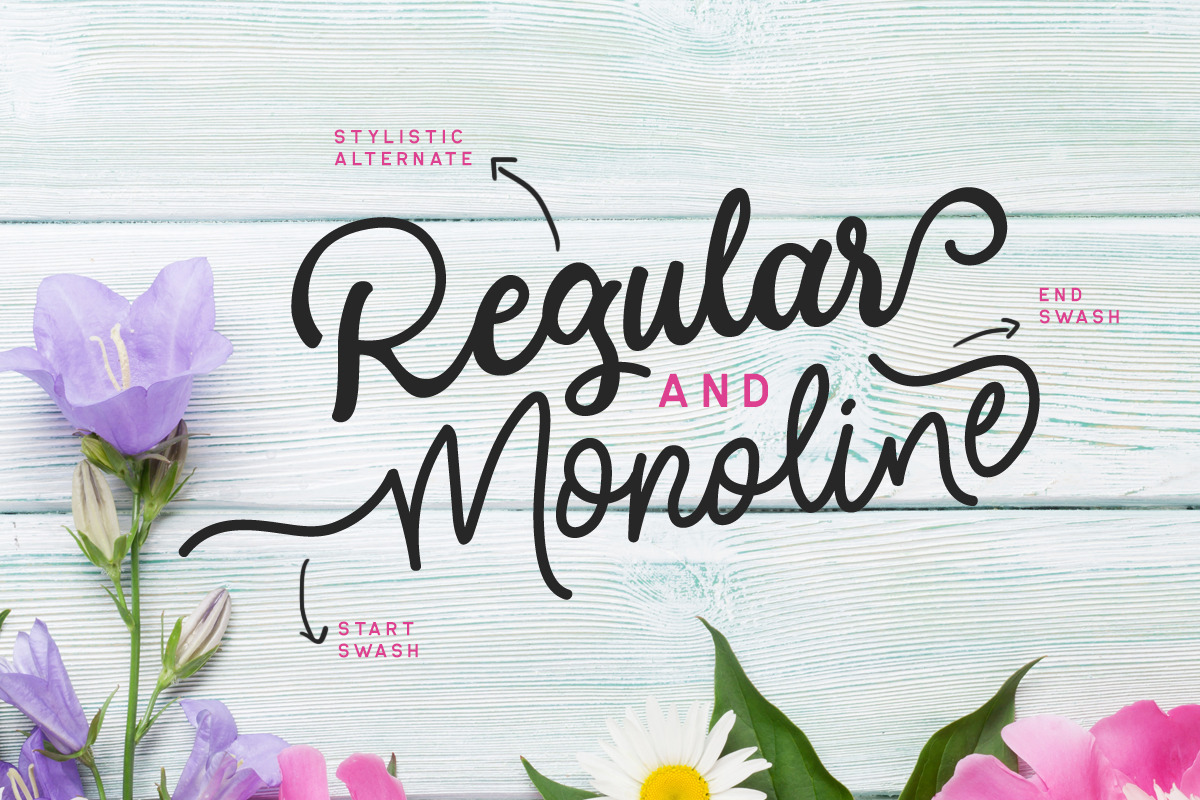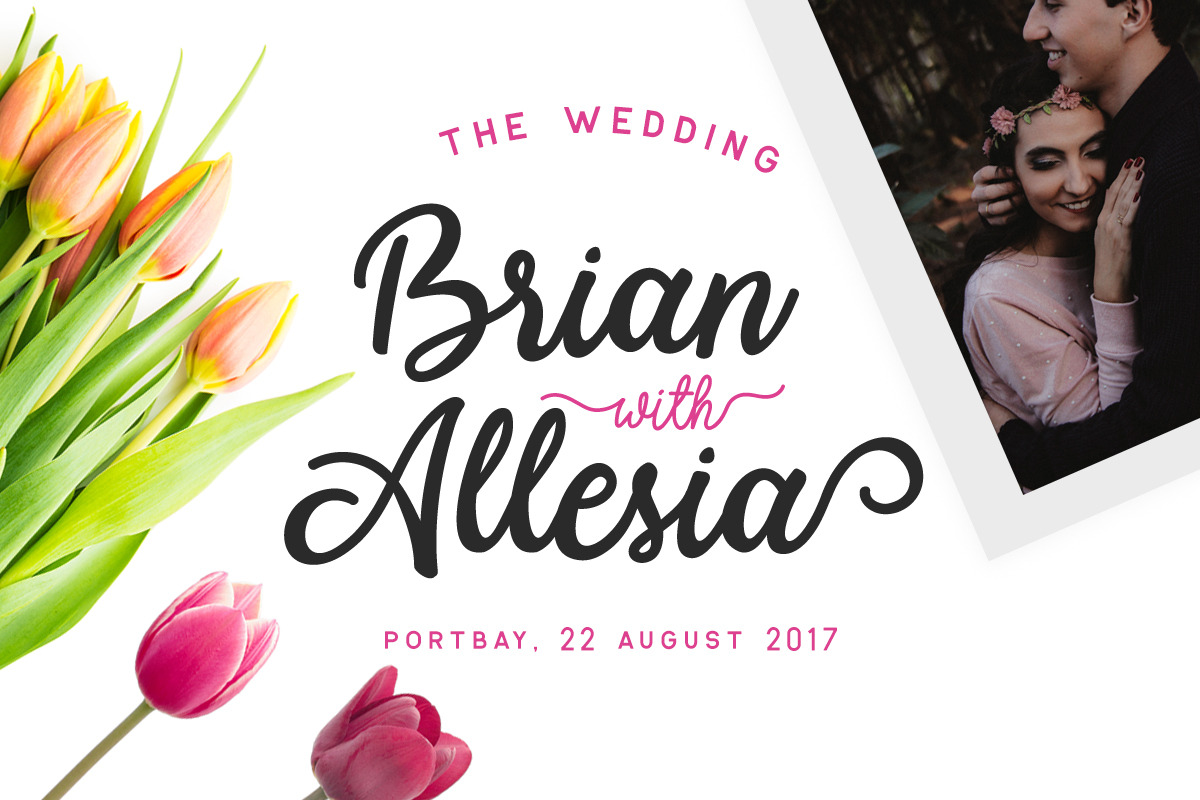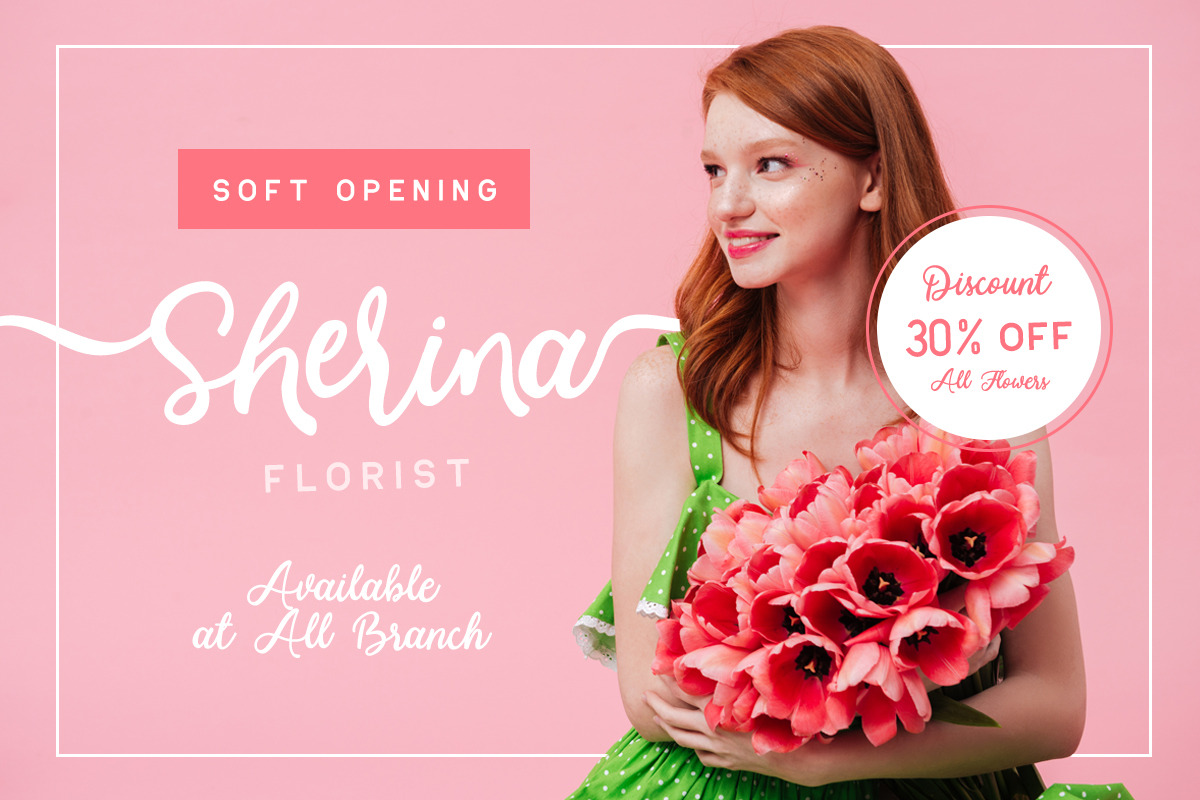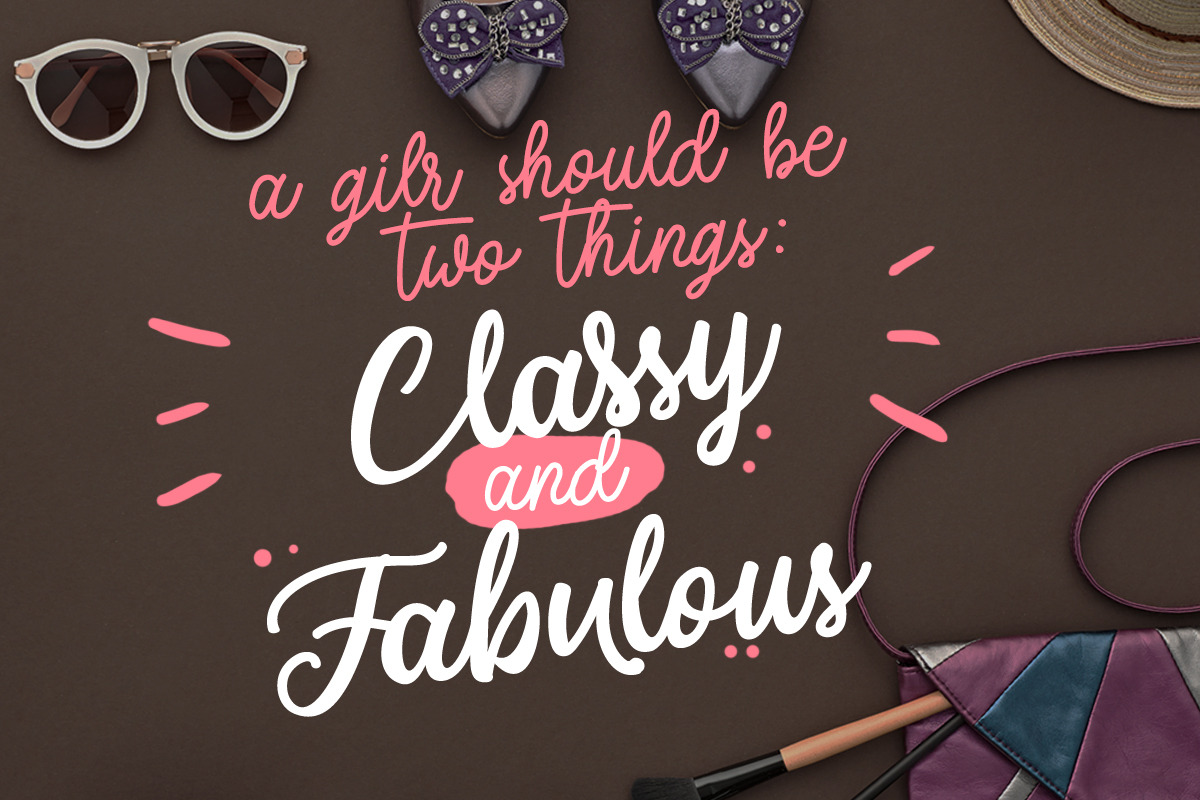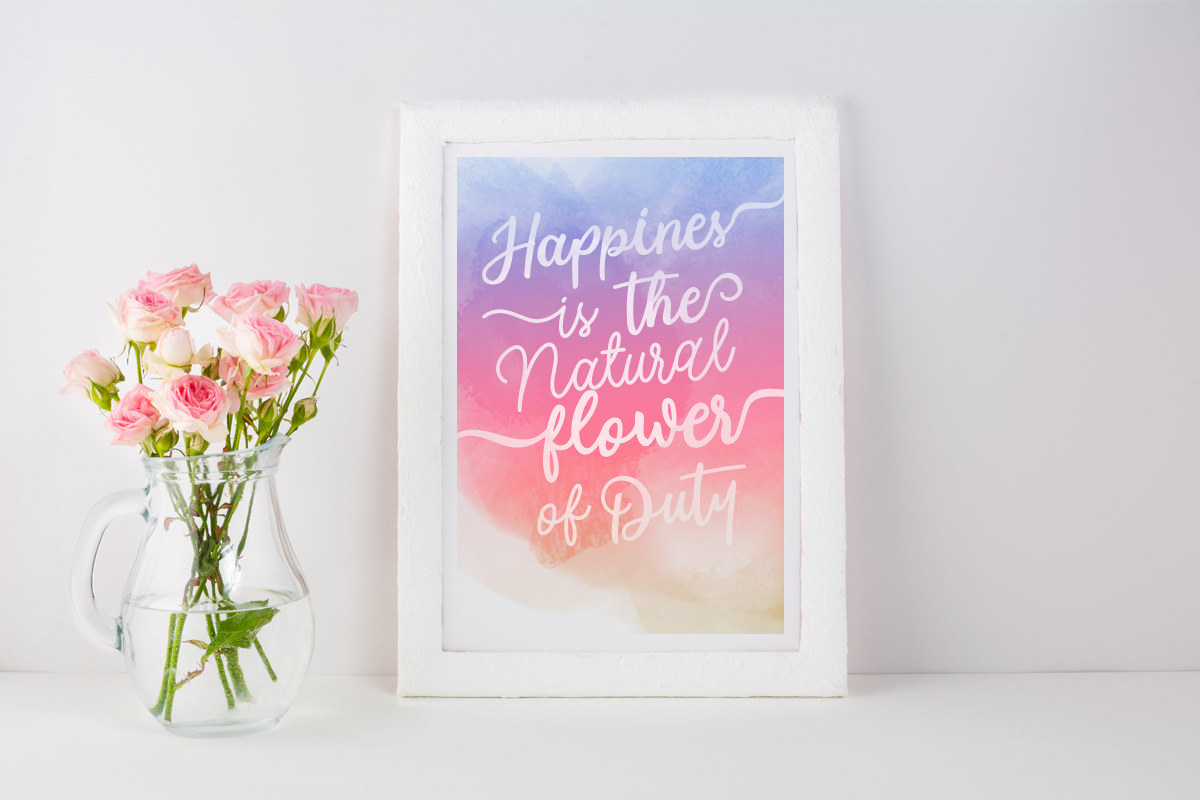
Modesta Script Font duo
Please welcome, ModestaScript! A lovely font duo script! This font has two types of style, monoline and regular. Perfect to be used for project with feminine & girly theme! You can play with the ligatures, stylistic alternate, swash, etc to create your own customized lettering. This font is also support multi language.
- Modesta Monoline
- Modesta Script